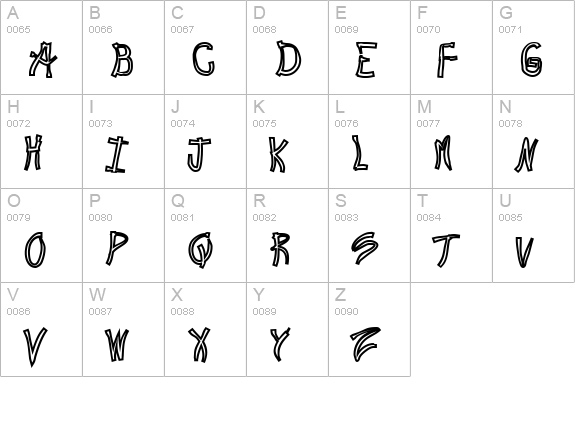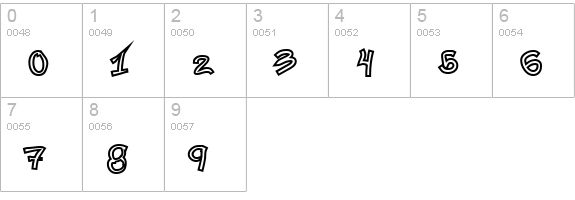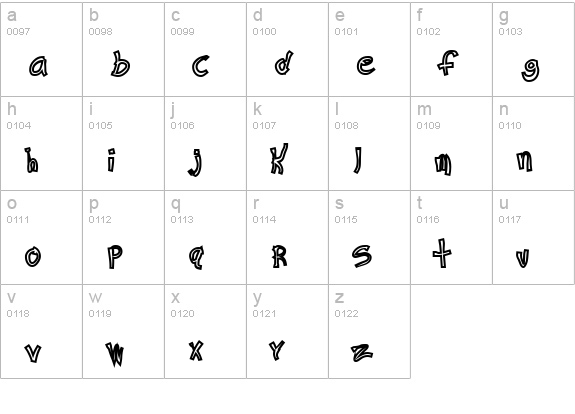
Ra's Hand Hollow Font Details
Ra's Hand Hollow is a captivating and whimsical font that exudes an air of playful elegance. With its unique hand-drawn style, this font brings a touch of charm and creativity to any design project. The delicate lines and hollowed-out letters create a sense of lightness and grace, making it perfect for adding a touch of magic to invitations, greeting cards, logos, and more. What sets Ra's Hand Hollow apart is not only its enchanting design but also its accessibility. This font is freely available to download at FontsMarket.com, allowing designers and creatives to effortlessly incorporate its magical appeal into their work. Whether you're a seasoned professional or an aspiring artist, this font is a valuable addition to your collection. The versatility of Ra's Hand Hollow is another remarkable aspect. Its legibility and clarity make it suitable for various platforms and applications, including print and digital media. From posters and advertisements to social media graphics and website headers, this font effortlessly adapts to diverse design needs. Ra's Hand Hollow is a font that sparks the imagination and adds a touch of whimsy to any project. Its free availability on FontsMarket.com ensures that anyone can explore the possibilities and experience the joy of working with this delightful typeface. So go ahead, download Ra's Hand Hollow, and let your creativity soar to new heights.